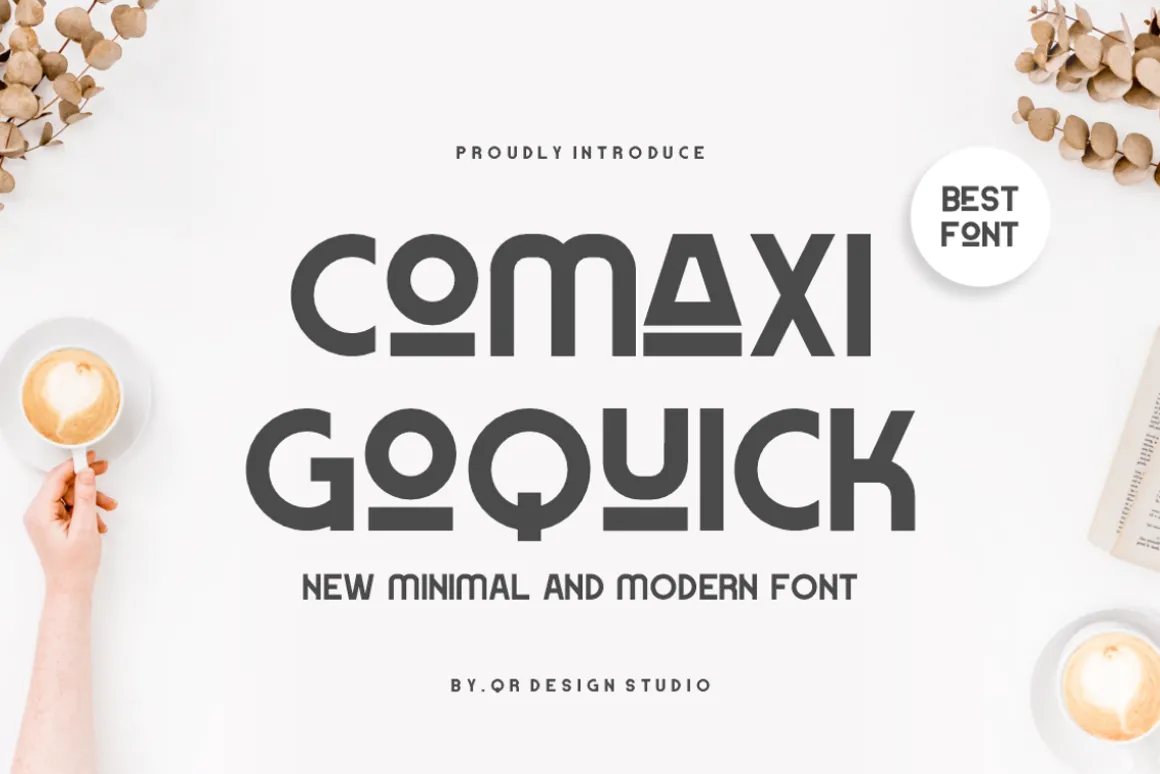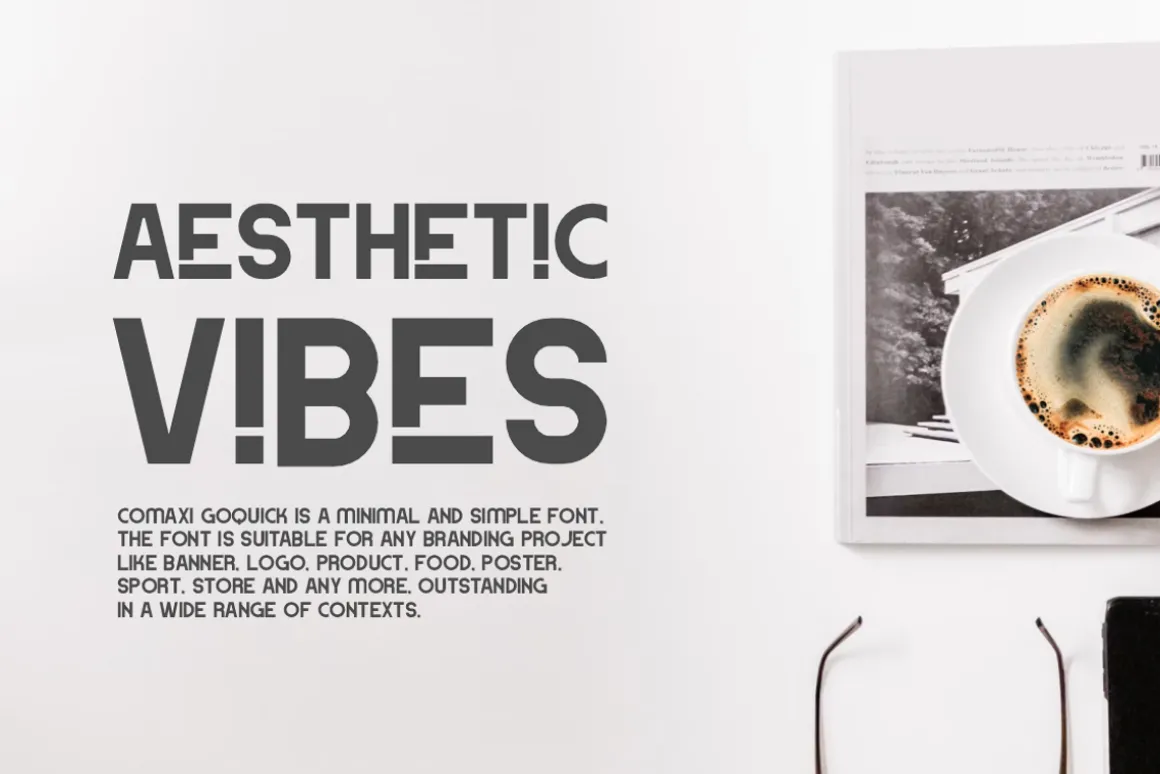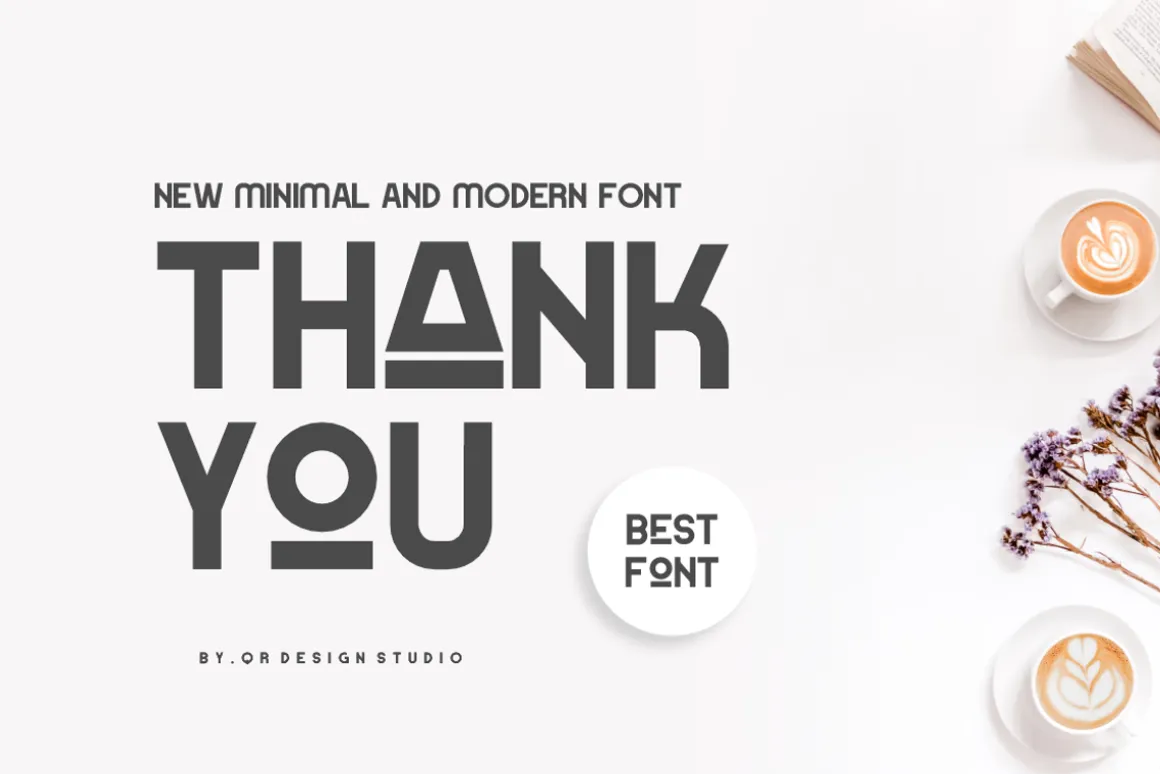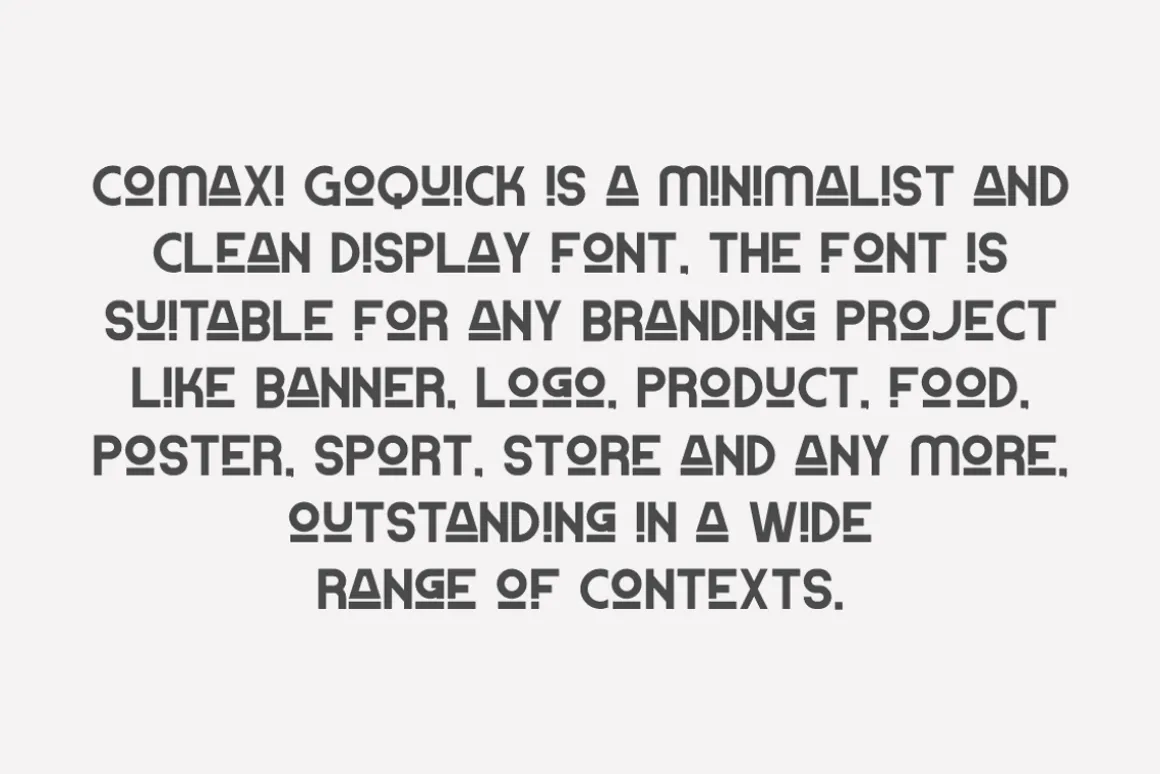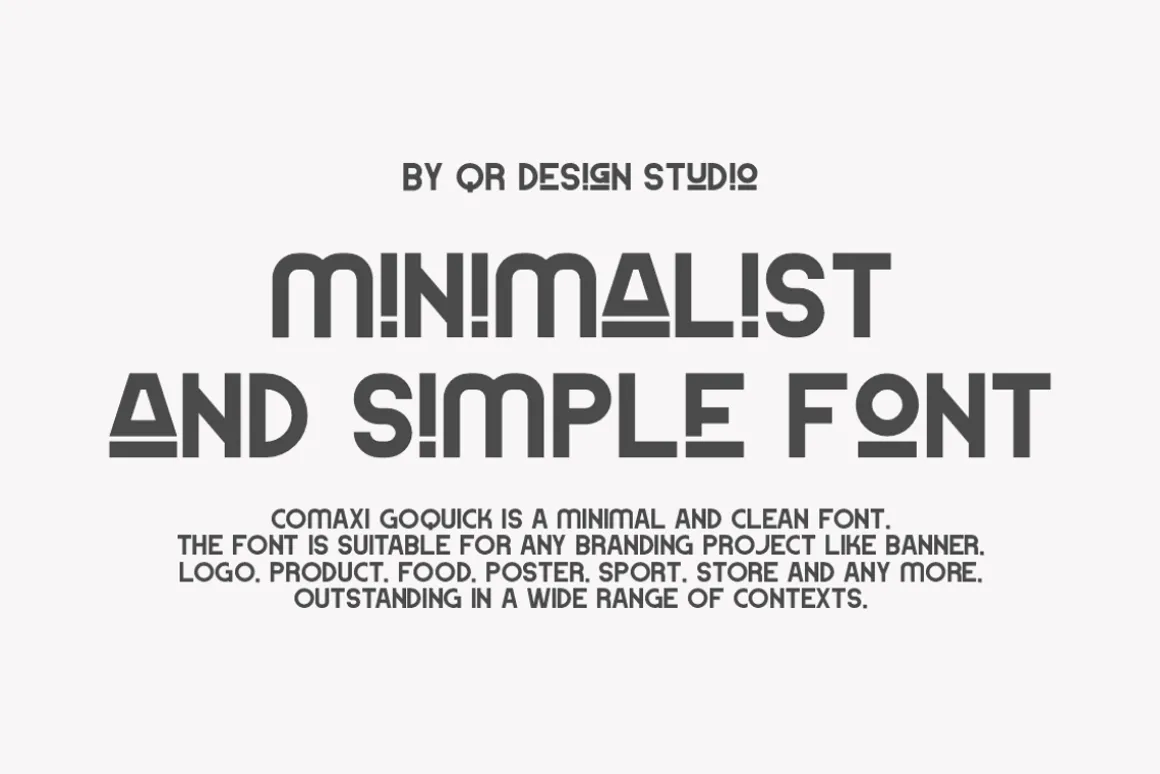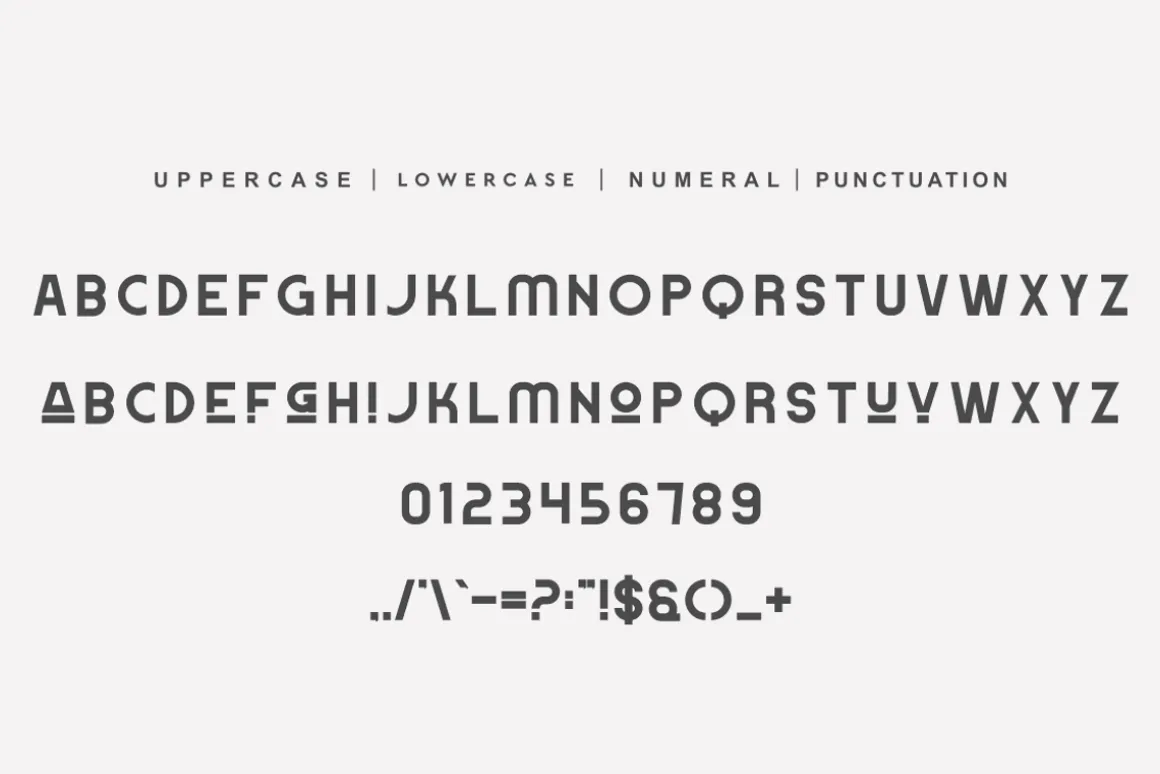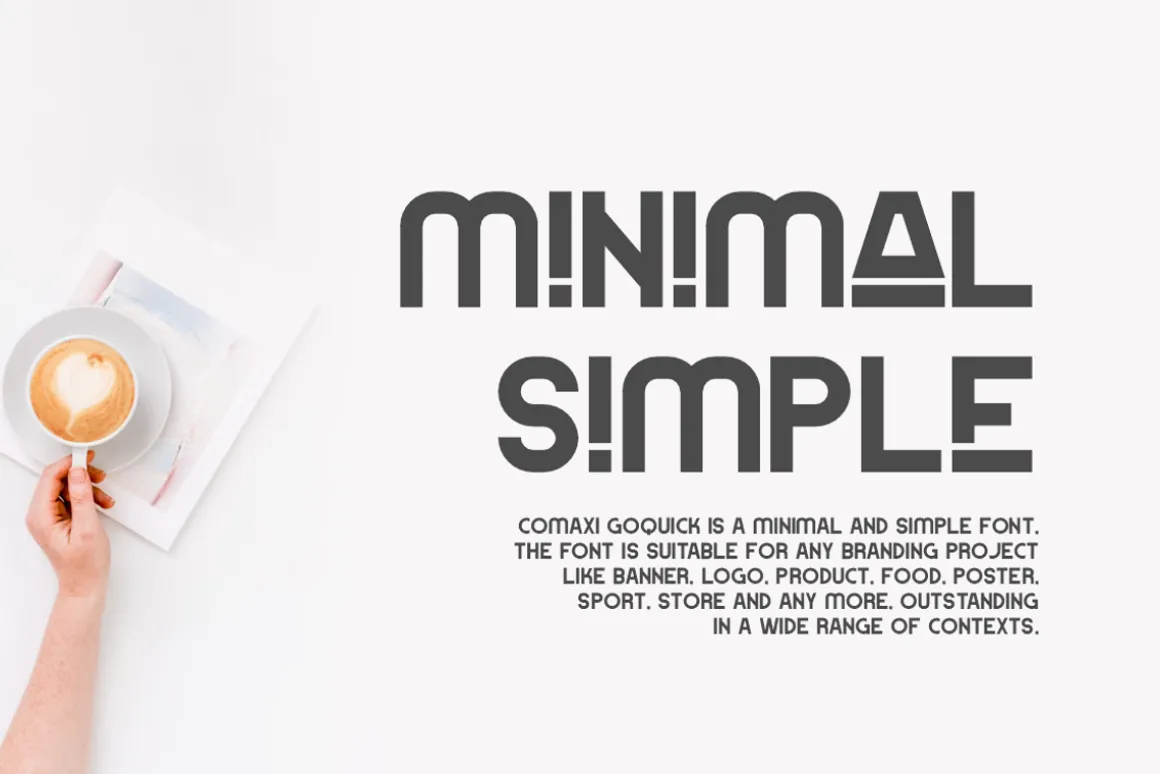
Comaxi Goquick Font is a sans serif and authentic display font.The font is suitable for any branding project like poster, logo, sport, and many more.Outstanding in a wide range of contexts.